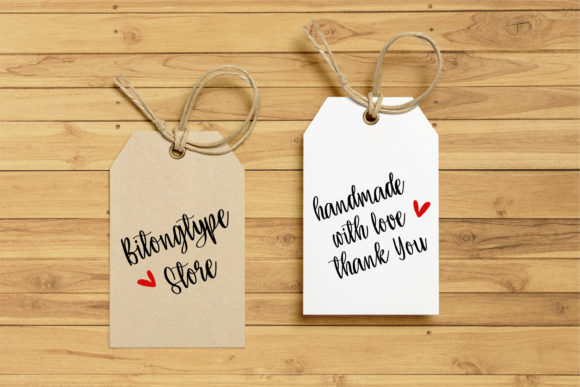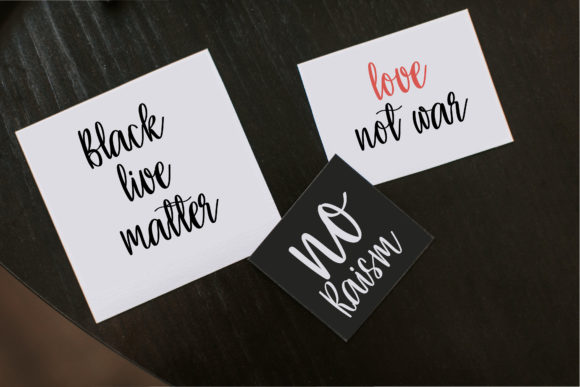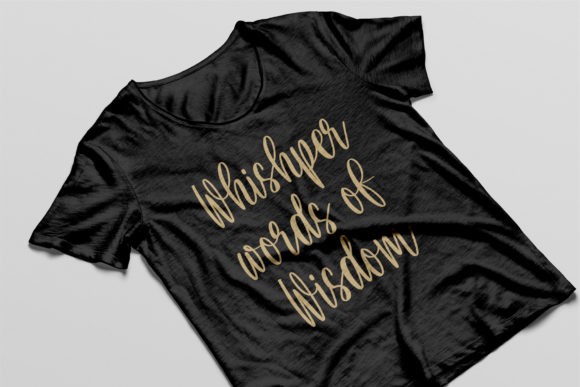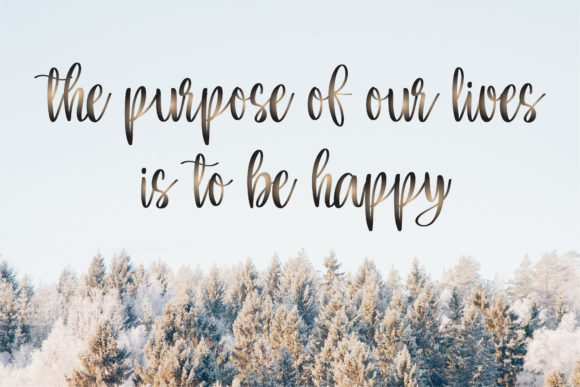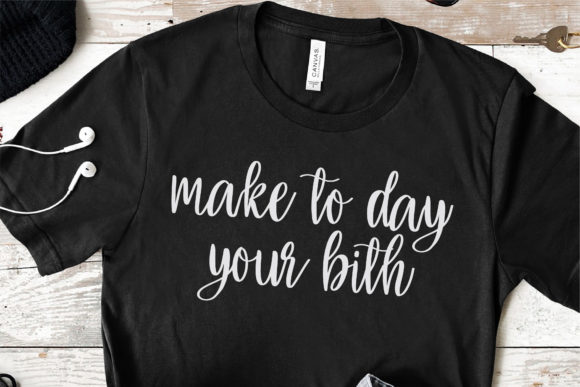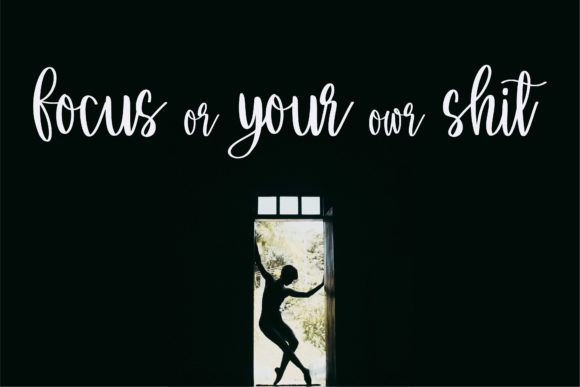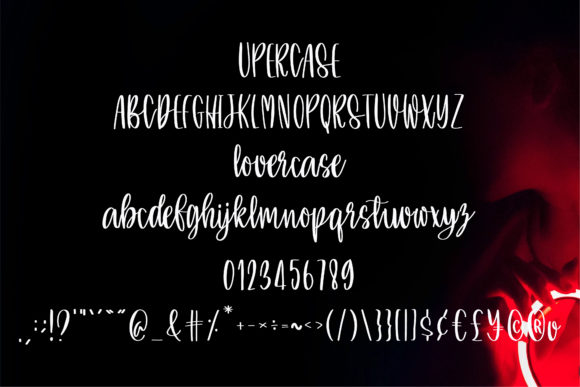
Love Not War Font
Love Not War is a sweet and friendly handwritten font. Its natural and unique style makes it incredibly fitting to a large pool of designs. The only limit is your imagination!